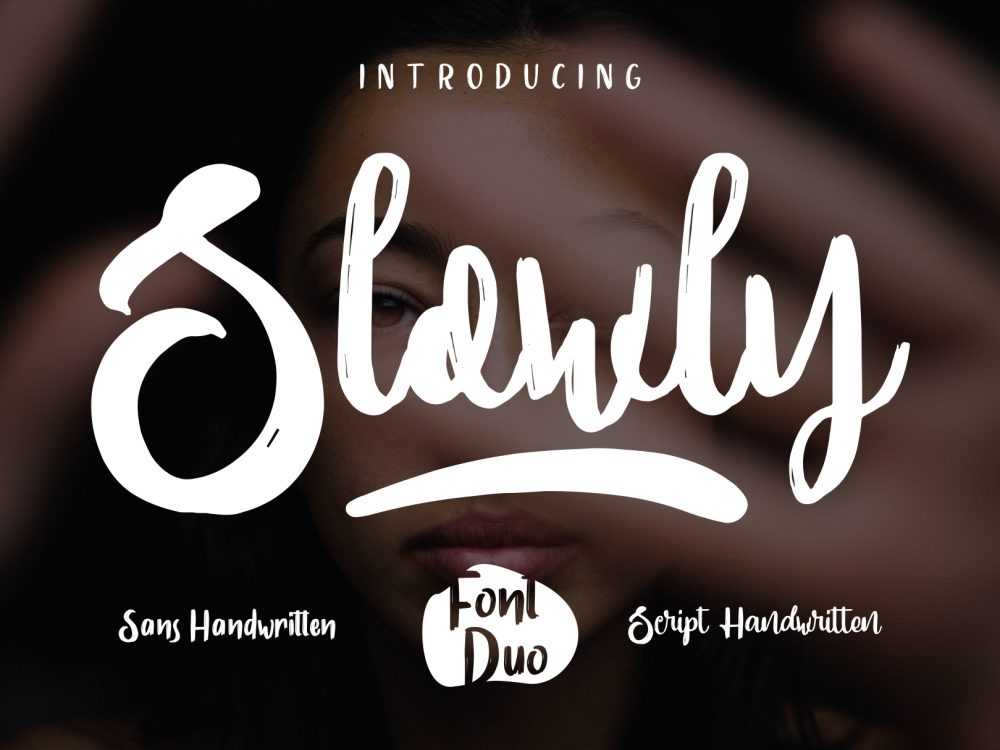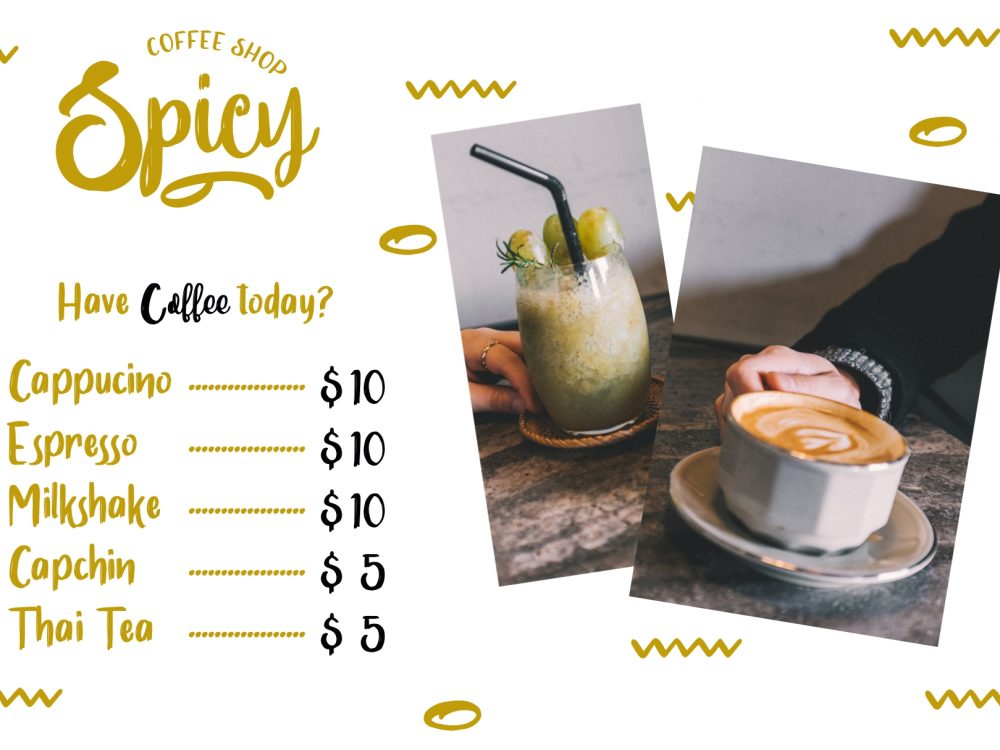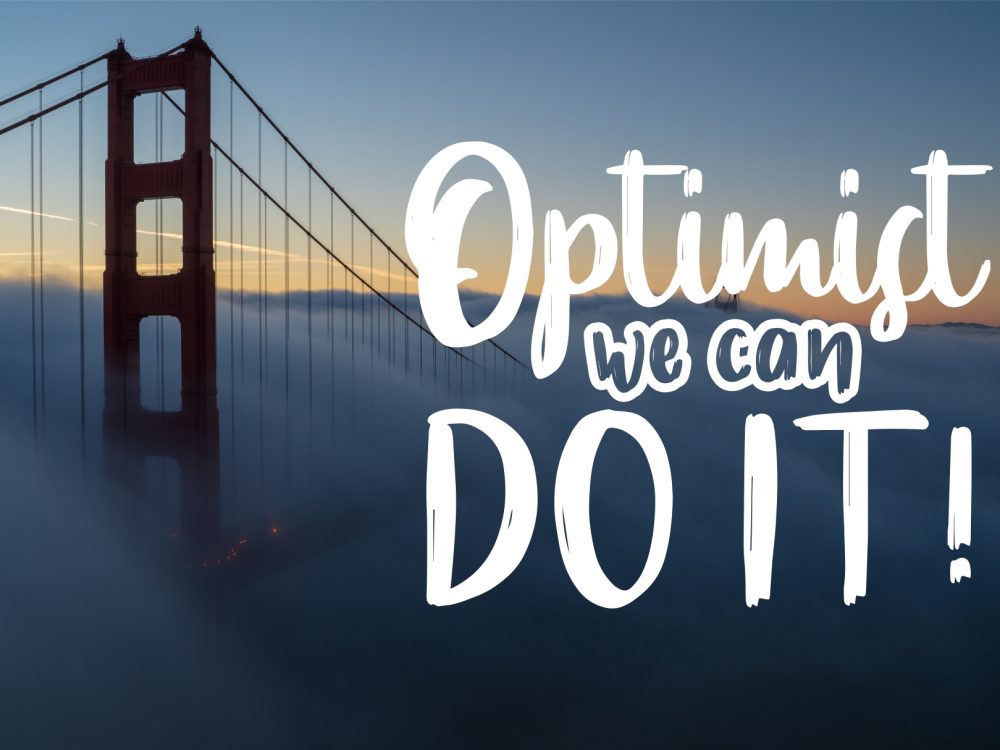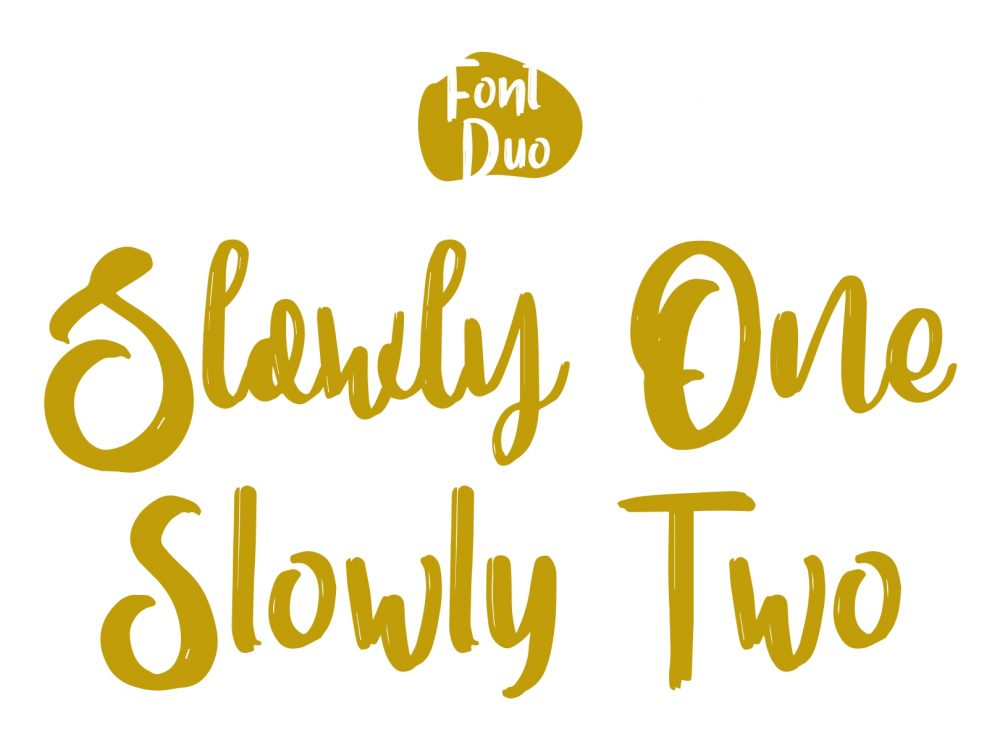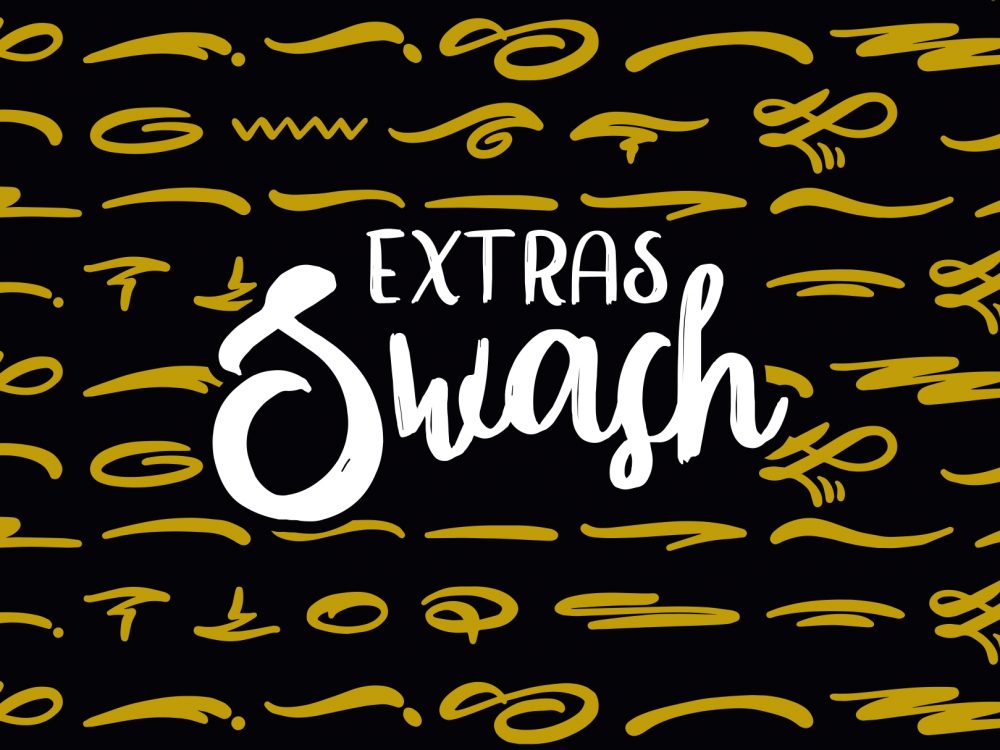
Slowly Free Font
Slowly Free Font is an interesting, modern typeface that mimics writing with a brush and features an elegant calligraphic style. This font is very suitable for creating various projects that require a script font. You can use this font to create memorable posters, wedding invitations, greeting cards, branding, flyers, t-shirt and pillow prints, and more. Improve the quality and increase the popularity of your design projects using this font. If you like it don’t forget to check out the full version.